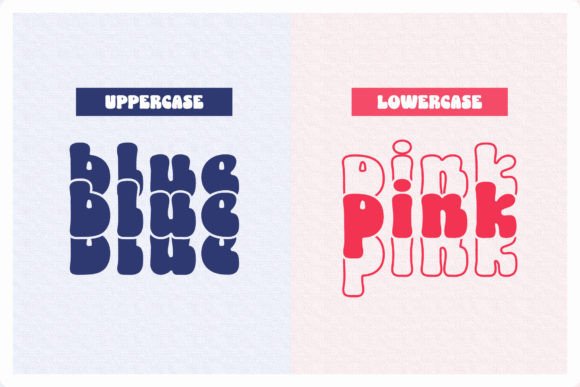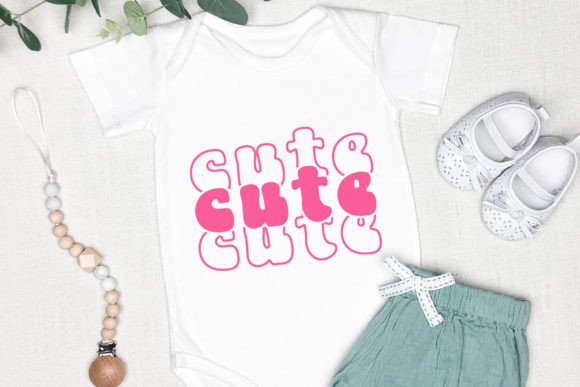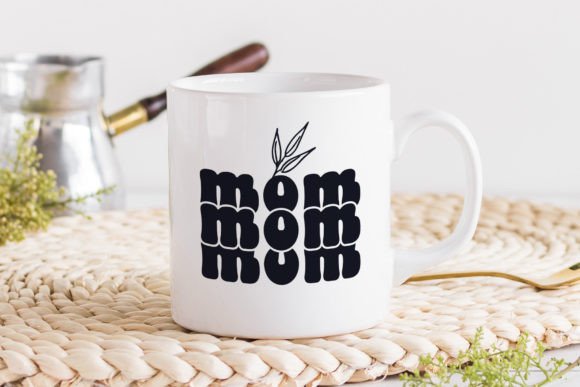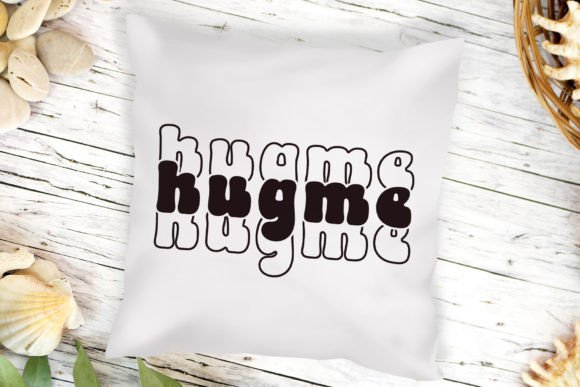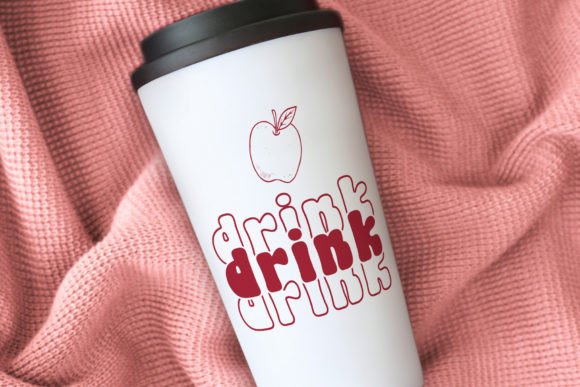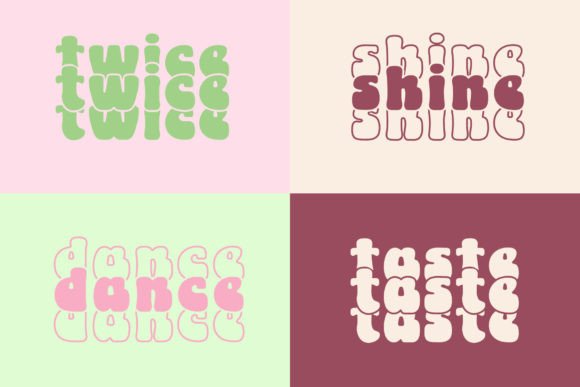
Introducing Cloud Font: The Ultimate Stacked Font for Retro and Vintage Enthusiasts
Are you a designer or crafter looking for a unique font to add a touch of retro and vintage vibes to your projects? Look no further than Cloud Font, a bold, cute, and playful stacked font that’s perfect for a wide range of crafting applications. In this article, we’ll dive into the features and benefits of Cloud Font, and explore how it can elevate your designs and crafts to the next level.
What is Cloud Font?
Cloud Font, also known as Cloud Stacked, is a lowercase stacked font that’s designed to evoke a sense of nostalgia and playfulness. This font is characterized by its bold, chunky letters that are stacked on top of each other, creating a unique and eye-catching effect. The font is entirely in lowercase, with uppercase letters featuring a solid stack and lowercase letters showcasing an outline stack.
Key Features of Cloud Font
- Retro and Vintage Vibes: Cloud Font is designed to capture the essence of retro and vintage design, making it perfect for projects that require a nostalgic feel.
- Bold and Playful: The font’s bold and chunky letters make it perfect for creating eye-catching designs that demand attention.
- Stacked Design: The stacked design of Cloud Font adds a unique touch to your projects, setting it apart from traditional fonts.
- Lowercase Stacked Font: Cloud Font is an all-lowercase stacked font, making it perfect for designers and crafters who want to create a distinctive look.
- Uppercase and Lowercase Variations: The font features solidly stacked uppercase letters and outline stacked lowercase letters, offering a range of creative possibilities.
Perfect for Crafting Projects
Cloud Font is the perfect addition to any crafting project, including:
- Posters: Create eye-catching posters that showcase your message in a bold and playful way.
- T-Shirt Quotes: Add a touch of personality to your t-shirt designs with Cloud Font’s stacked letters.
- Mugs: Make your mug designs stand out with Cloud Font’s bold and playful letters.
- Stickers: Create stickers that pop with Cloud Font’s unique stacked design.
- Sublimation: Use Cloud Font to create stunning sublimation designs that showcase your creativity.
Why Choose Cloud Font?
- Unique Design: Cloud Font’s stacked design sets it apart from traditional fonts, making it perfect for designers and crafters who want to create something distinctive.
- Versatile: Cloud Font can be used for a wide range of crafting projects, from posters and t-shirts to mugs and stickers.
- High-Quality: Cloud Font is a high-quality font that’s designed to produce crisp and clear results, even at large sizes.
In conclusion, Cloud Font is a unique and versatile stacked font that’s perfect for designers and crafters who want to add a touch of retro and vintage vibes to their projects. With its bold, cute, and playful design, Cloud Font is sure to elevate your designs and crafts to the next level. So why wait? Download Cloud Font today and start creating stunning designs that showcase your creativity!